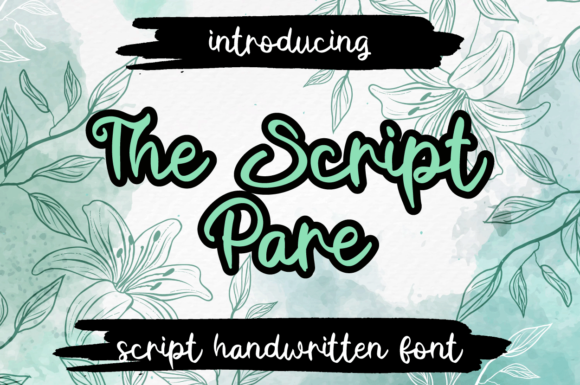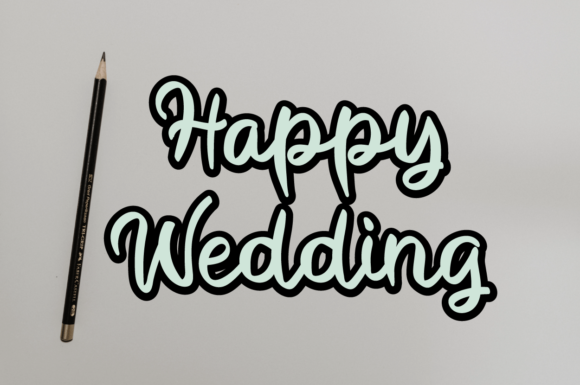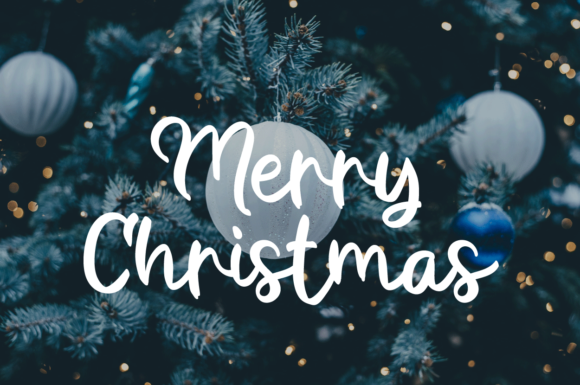
About The Script Pare Font
The Script Pare is a gorgeous handwritten font that impresses through its natural and elegant style. Add it to your most creative ideas, and notice how it transforms them into authentic pieces of art!